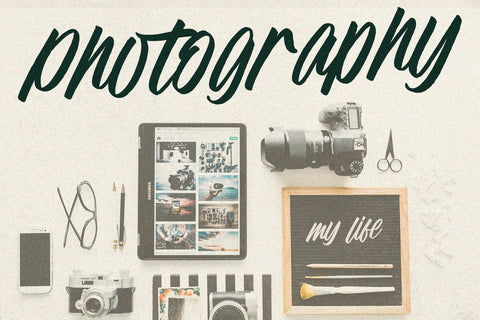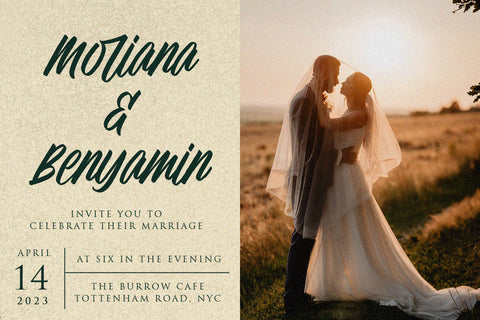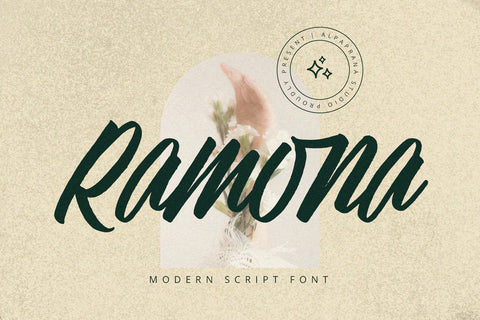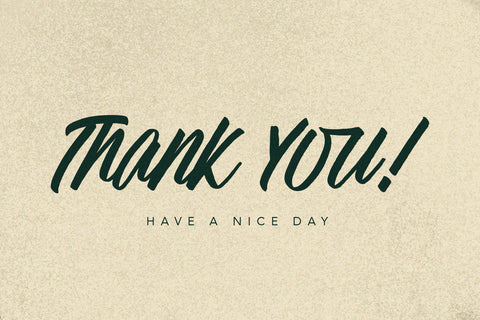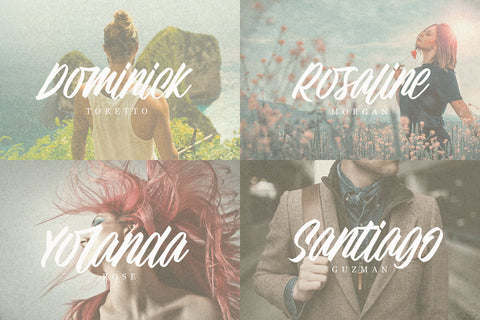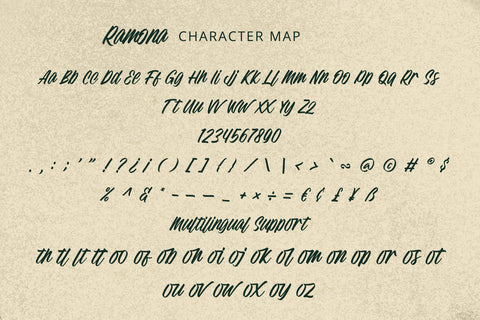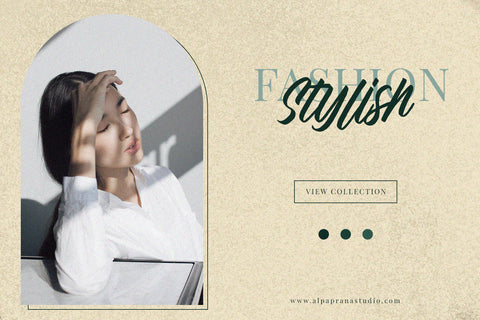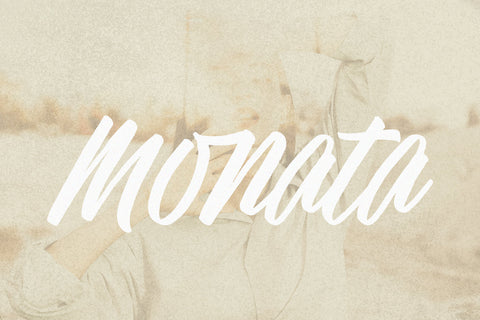
Ramona - Modern Script Font
Ramona is a modern script font with authentic and natural feels. It will be perfectly used for Branding, Logo Design, Lettering, Logotype, Clothing, Poster, magazine, packaging, posters, shopping bags, t-shirts, book covers, photography, special events and other design project.